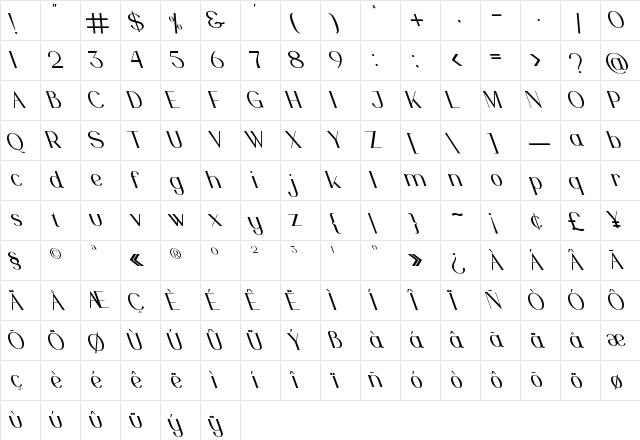
Pinkerston Oblique Regular
Design Context for Pinkerston Oblique Typeface
Pinkerston Oblique offers clean, dependable letterforms without strong stylistic allegiance, making it a practical choice for designers who need flexibility. The dynamic lean of this cut emphasises speed and emphasis in any layout.
Pro Tip: Try Pinkerston Oblique for annotation and caption copy alongside an upright companion — the contrast in angle creates a dynamic but ordered typographic system.